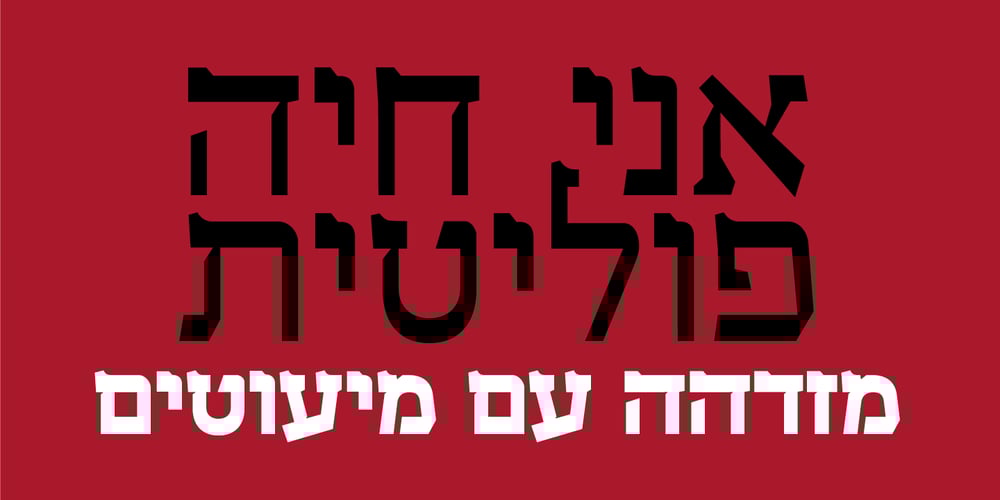
Ein Karem MF Font Family was designed by Zvika Rosenberg and published by Masterfont. Ein Karem MF contains 3 styles and family package options. A practical font family with 3 weights for all your needs: headlines, body text, signage etc. High legibility at small sizes.